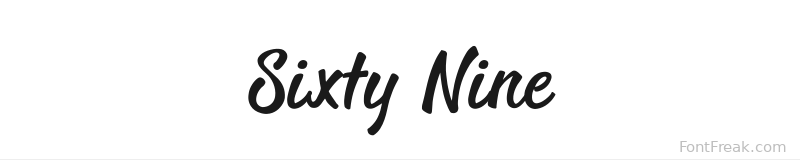
Sixty Nine
Sixty Nine by BLKBK Fonts is a captivating script font that embodies a playful yet elegant style. This font features smooth, flowing lines with a moderate stroke weight that offers a graceful contrast between thick and thin elements, making it visually appealing and easy to read. The letterforms are well-balanced with ample spacing, allowing for clarity and legibility in various applications. The decorative characteristics of Sixty Nine include charming loops and swashes that enhance its whimsical quality, making it perfect for creative projects.
This versatile font is ideal for a range of use cases, including wedding invitations that call for a romantic touch, movie posters where a contemporary flair is desired, and restaurant menus that aim to create an inviting atmosphere. Additionally, it works wonderfully for branding materials, such as logos and business cards, where a touch of sophistication is essential. Small business owners, graphic designers, and content creators will find Sixty Nine an invaluable addition to their font collection, as it allows for unique and expressive designs that stand out.
What sets Sixty Nine apart is its ability to balance elegance with a friendly vibe, making it suitable for both formal and casual settings. Whether you're crafting a heartfelt invitation or designing eye-catching promotional materials, this font adds a distinctive flair that captures attention. With its freeware license, the Sixty Nine font free download makes it accessible for anyone looking to elevate their design projects without breaking the bank. Embrace the charm and versatility of Sixty Nine, and let your creativity flow.